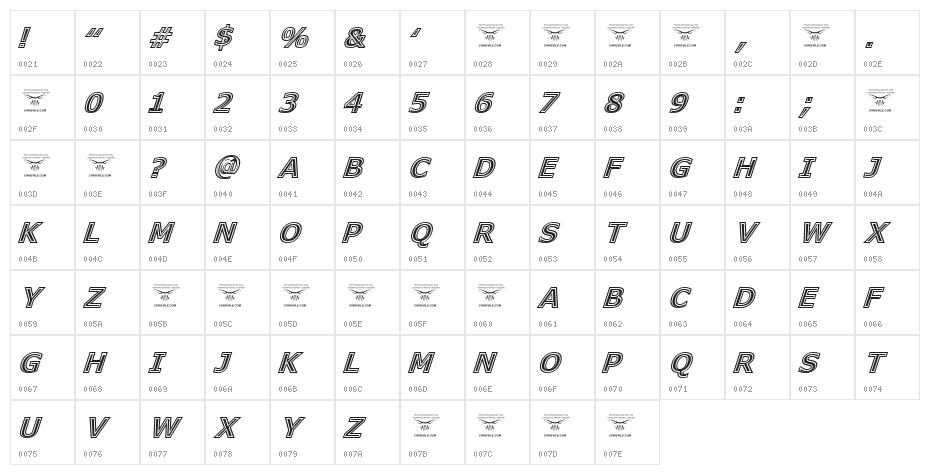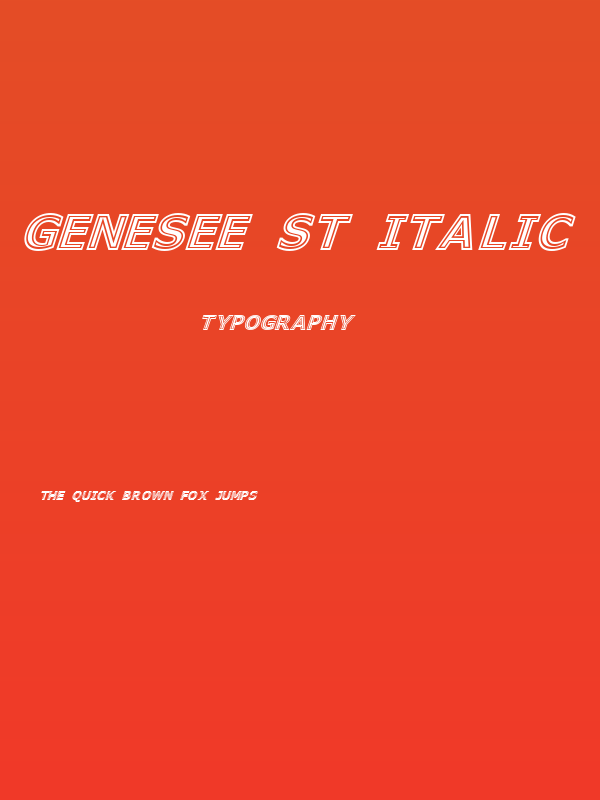
Genesee St Italic Font
Genesee St Italic Description
This font features a bold, italicized style with a distinct outline that gives it a three-dimensional effect. The characters are uppercase and numerals, each with a consistent slant that adds a dynamic feel. The strokes are uniform in thickness, contributing to a clean and modern appearance. The spacing between characters is normal, ensuring readability while maintaining a compact look. The font's design is suitable for making a strong visual impact, ideal for headlines or titles where attention is paramount.
| Proposed Projects | Ideal for branding, poster designs, and attention-grabbing headlines. |